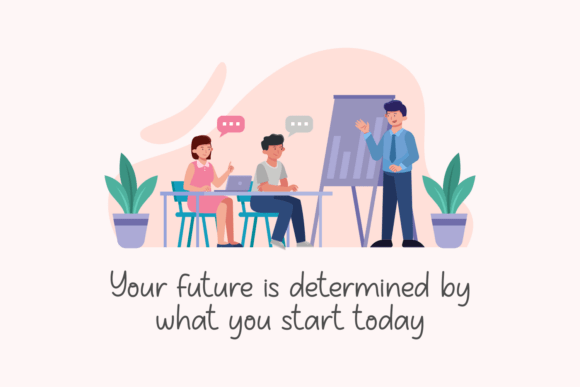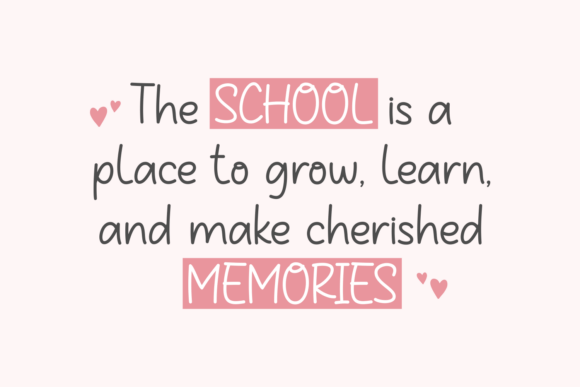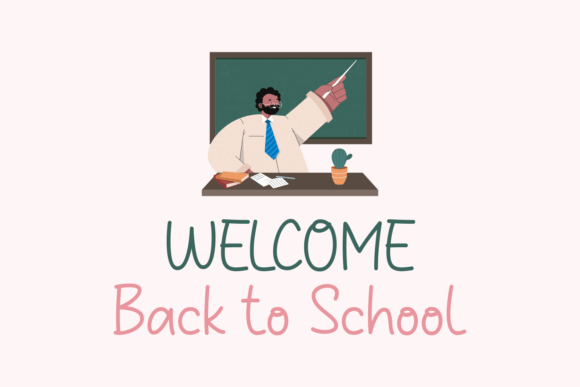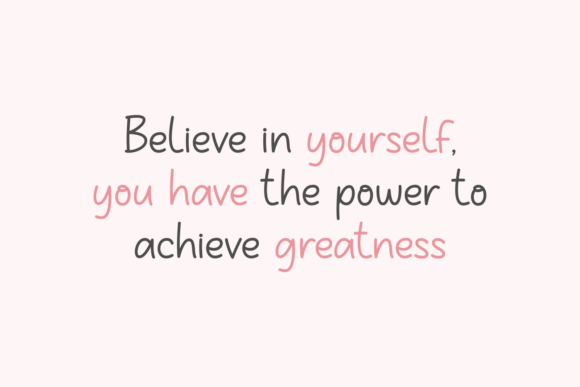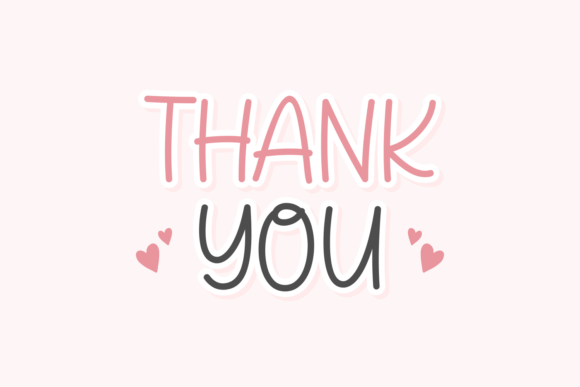
Introduction to School Wonderful Font
As a designer, there’s nothing quite like the thrill of discovering a new font that sparks creativity and brings a project to life. It was on a lazy Sunday morning, surrounded by scattered notebooks and pens, that I stumbled upon the enchanting School Wonderful Font. Its whimsical, handwritten charm instantly transported me back to my childhood days of scribbling notes in the margins of textbooks. I was hooked, and I knew I had to share this delightful find with fellow designers.
What makes School Wonderful Font truly special is its versatility and high-quality design. Whether you’re working on a creative project, designing a greeting card, or simply adding a personal touch to a blog entry, this font is sure to breathe life into your work. With its unique character and authentic handcrafted charm, it’s no wonder that designers are flocking to download this free resource with a transparent background, eager to infuse their designs with a touch of nostalgia and sentimentality.
Key Features of School Wonderful Font
- High-quality design resource perfect for creative projects, including educational materials and children’s content.
- Includes a range of characters and symbols, ideal for use in school-related projects and designs.
- Designed specifically for use in a school setting, with a unique and playful aesthetic that adds a touch of whimsy to any project.
Honest Review: School Wonderful Font
As a designer, I’ve had the chance to work with many fonts, but the School Wonderful Font caught my eye due to its unique charm. I was curious to see how it would perform in various design projects.
- High-quality glyphs that are crisp and clear.
- A wide range of characters, including punctuation and symbols.
- A transparent background that makes it easy to overlay on images.
- Limited font styles, which might make it less versatile for some projects.
- No bold or italic versions, which can be a limitation for headings or emphasis.
Overall, the School Wonderful Font is a great addition to any designer’s toolkit. While it has some limitations, its unique charm and high-quality glyphs make it perfect for creative projects where a clean and simple design is required. I would definitely recommend it as a design resource for designers working on a variety of projects.
The School Wonderful Font is commonly used in educational materials, such as textbooks, worksheets, and presentations. It can also be used in creative projects, such as brochures, flyers, and posters.